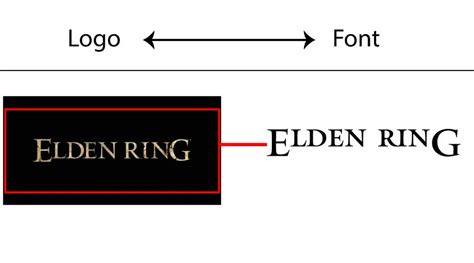
Elden Ring Font. Web one of the things that make the elden ring logo so legible is the font used. Web what is the elden ring font?
Web elden ring text effect and font type hello everyone: On this webpage you can enter some phrases to compare them to your gameplay. The time is now 06:33 reply newer topic older topic font identification It is a great way to add a touch of sophistication and elegance to any design project. Web the elden ring font, mantinia, is free for personal use, which makes it even more appealing to designers and fans of the game who want to use it in their projects. This is the same font used by the elden ring logo. Celtic, perry gothic, roman, mantinia, old london, bankai, norse and drukaatie burti. I'm not sure if it's the actual font but it certainly looks like it. The elden ring font is the logo of the game elden ring, which is similar to or has a close resemblance to a serif typeface called the mantinia regular font. Web 8 new fonts for elden ring:
One of the most noticeable and essential elements of any game is its typography, and elden ring is no exception. Celtic, perry gothic, roman, mantinia, old london, bankai, norse and drukaatie burti. The time is now 06:33 reply newer topic older topic font identification It is a great way to add a touch of sophistication and elegance to any design project. The font used in elden ring is a serif font called mantinia regular font. Web elden ring font #1 daymarius quote jul 28, 2020 at 13:24 suggested font mantinia suggested by daymarius #2 daymarius quote nov 05, 2020 at 16:54 suggested font: Web the elden ring font, mantinia, is free for personal use, which makes it even more appealing to designers and fans of the game who want to use it in their projects. Can someone be so kind to tell what the font type is called and how the text effect (color and cracked letters) is produced on the images some of the fellow tarnished are posting here, counting down days. Web what is the elden ring font? One of the most noticeable and essential elements of any game is its typography, and elden ring is no exception. This is the same font used by the elden ring logo.